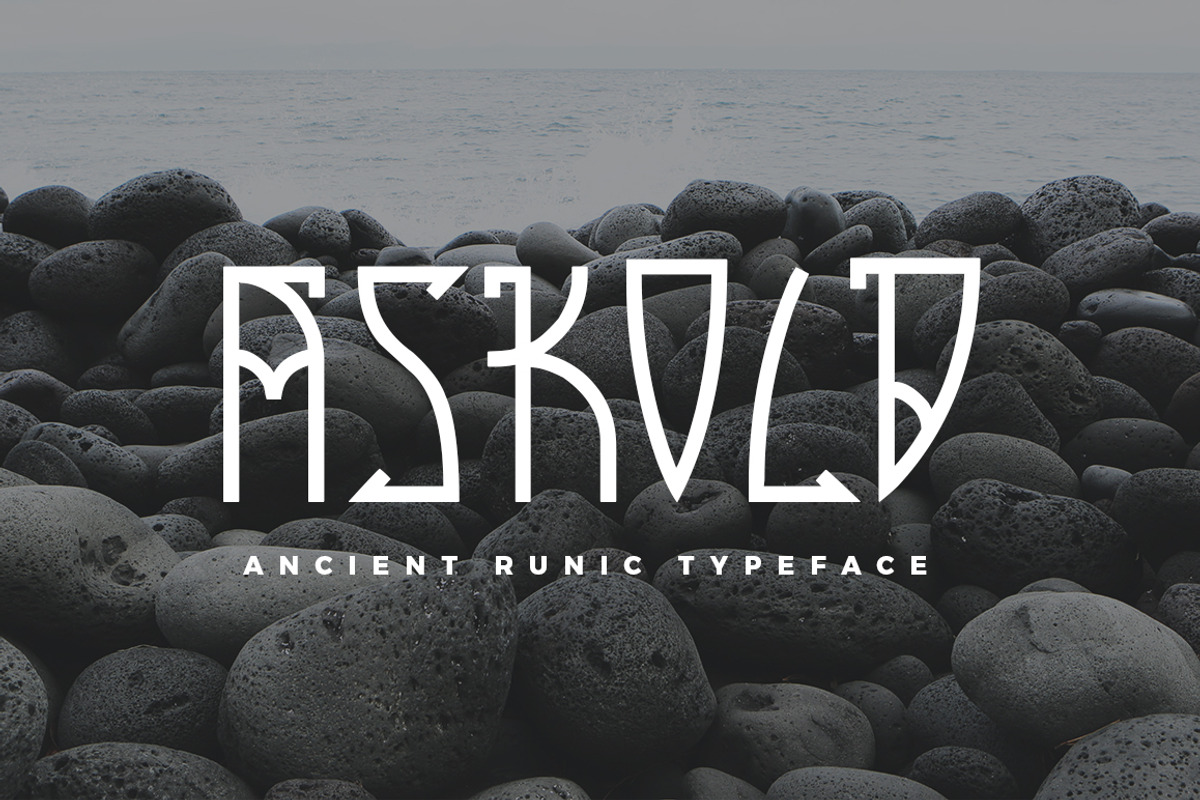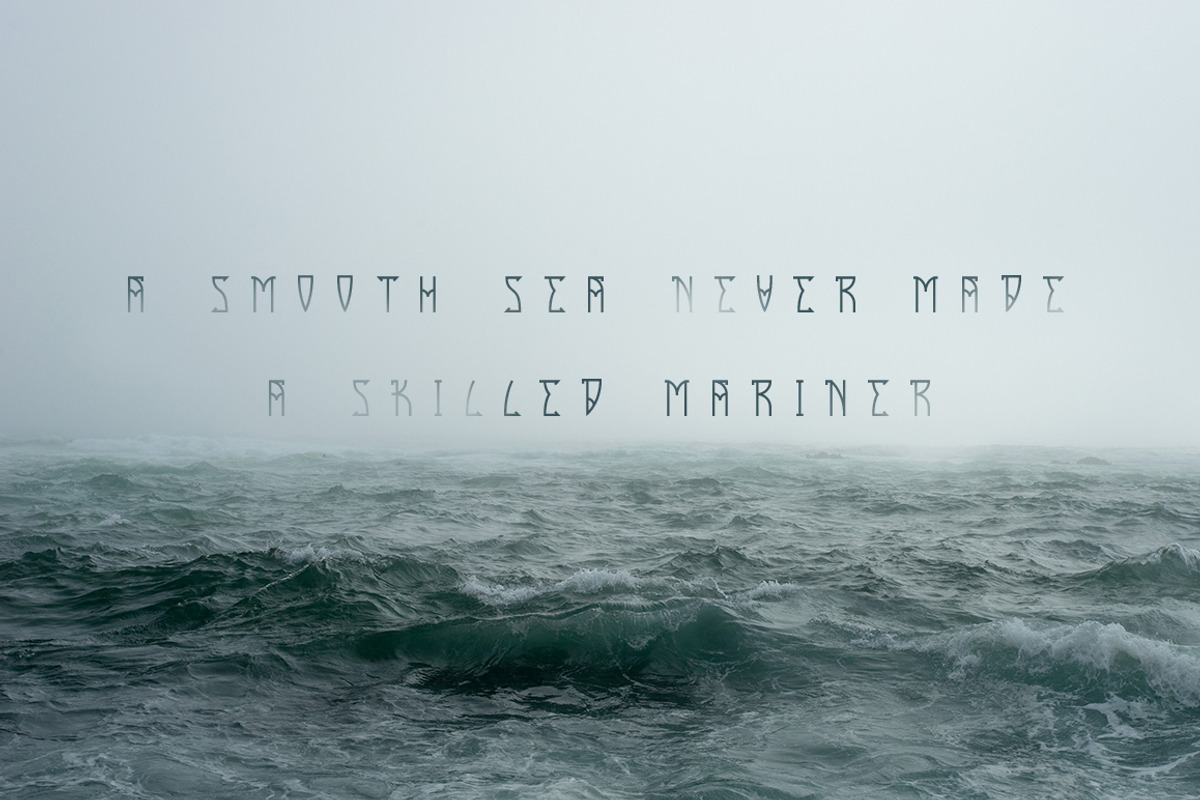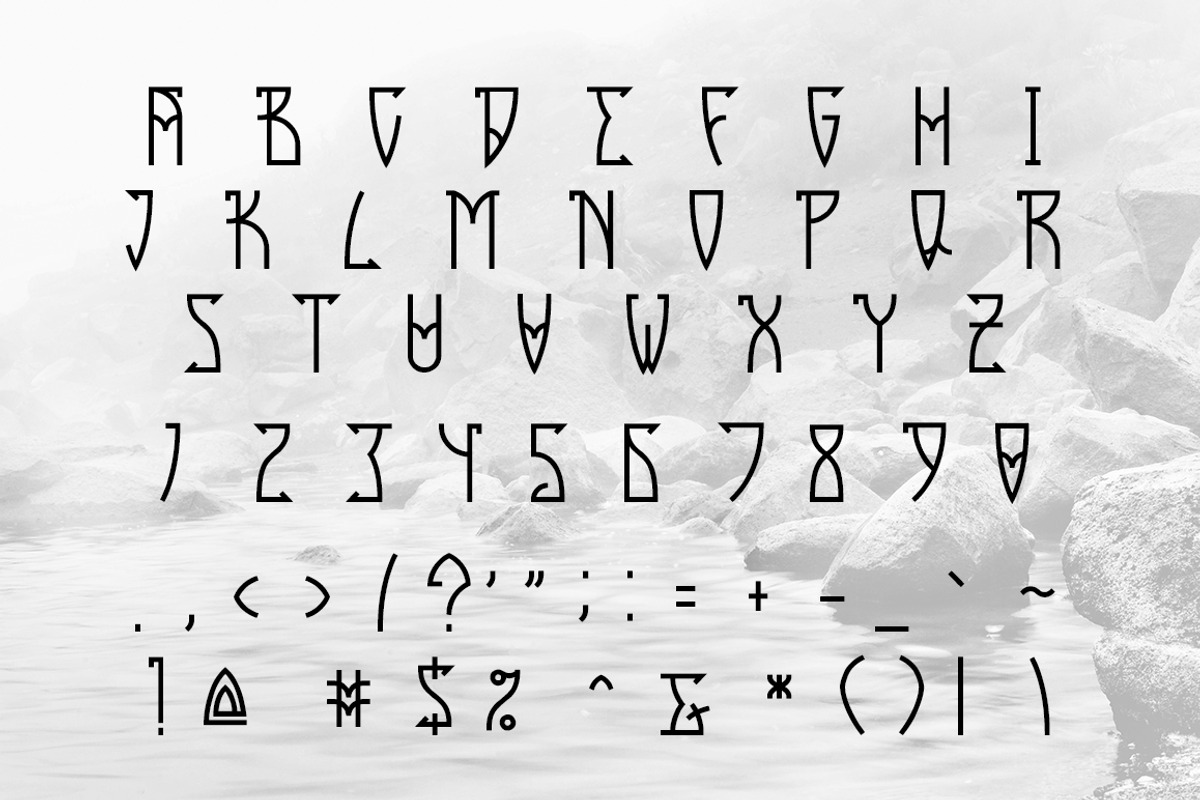
Askold typeface
Askold typeface by Magda is a font selected for branding, posters, packaging, typography.
Why Askold typeface is worth a look
Askold typeface by Magda fits naturally into Branding, posters, packaging, typography.